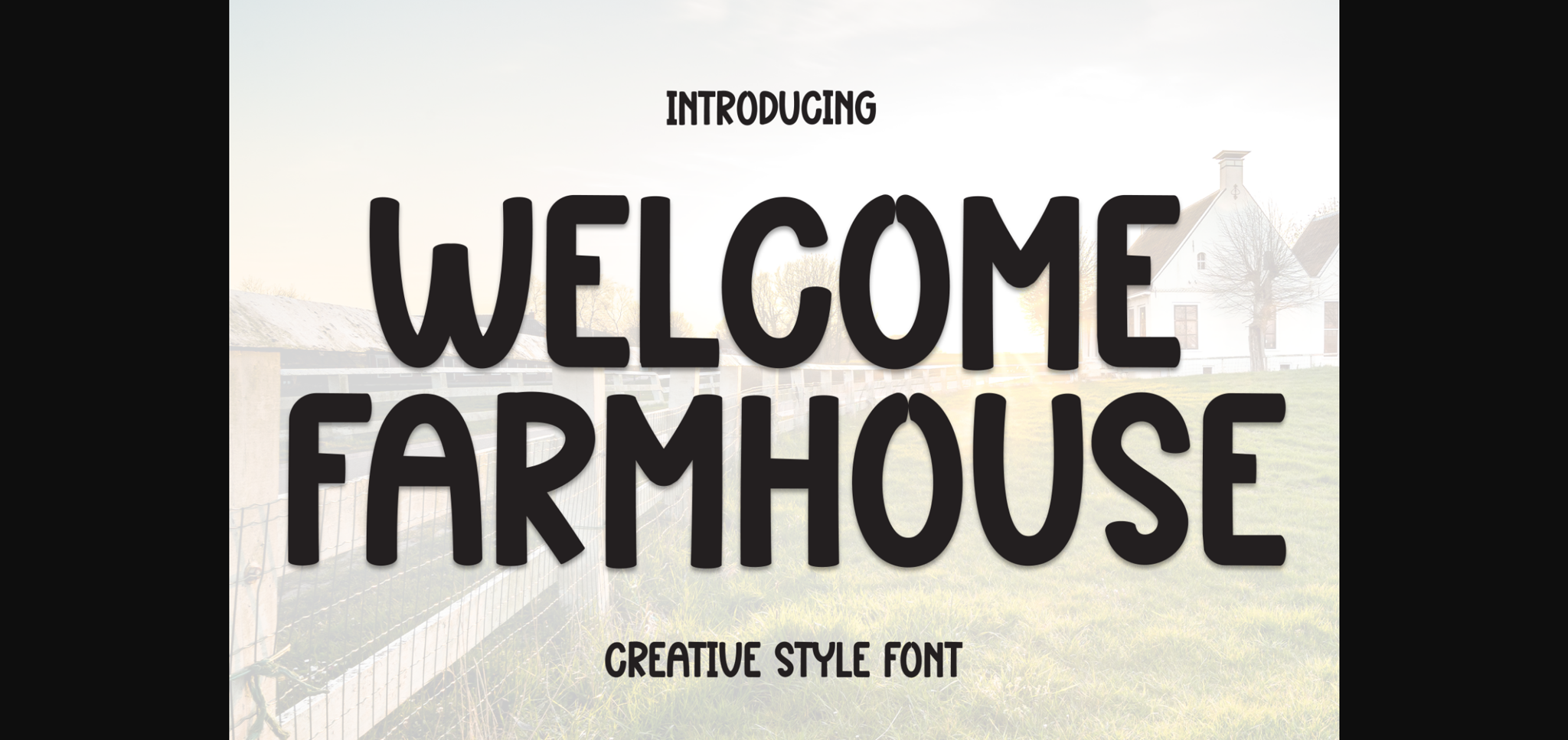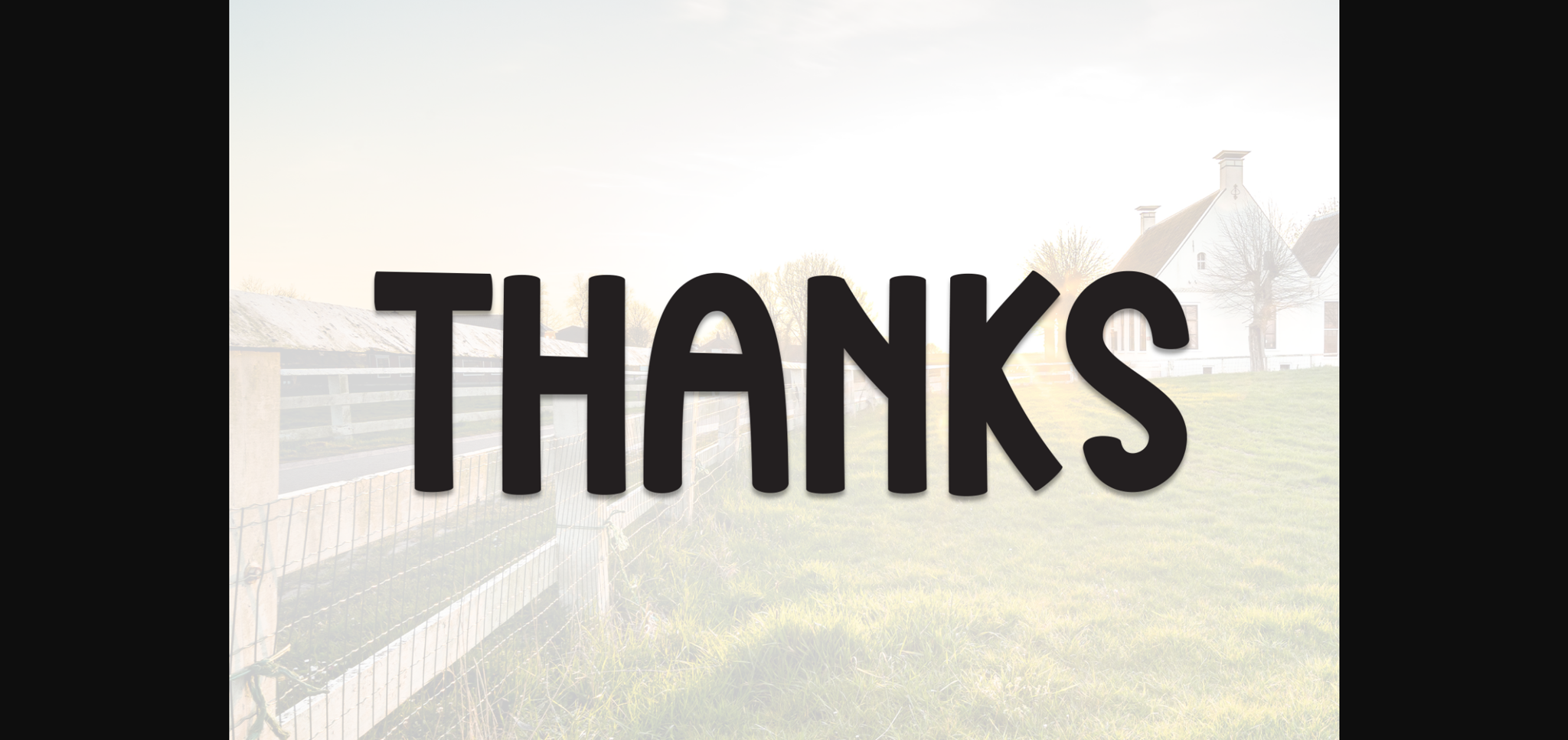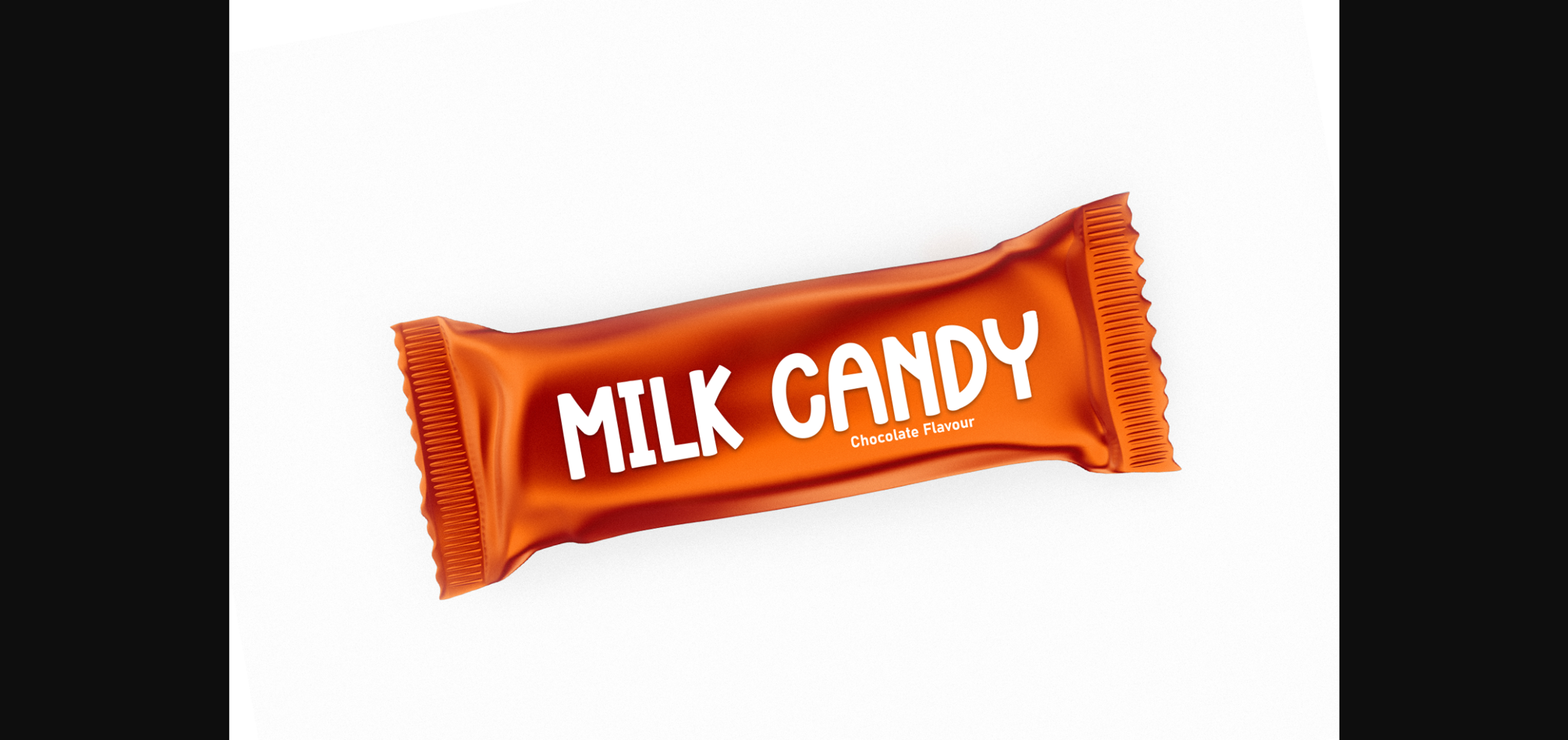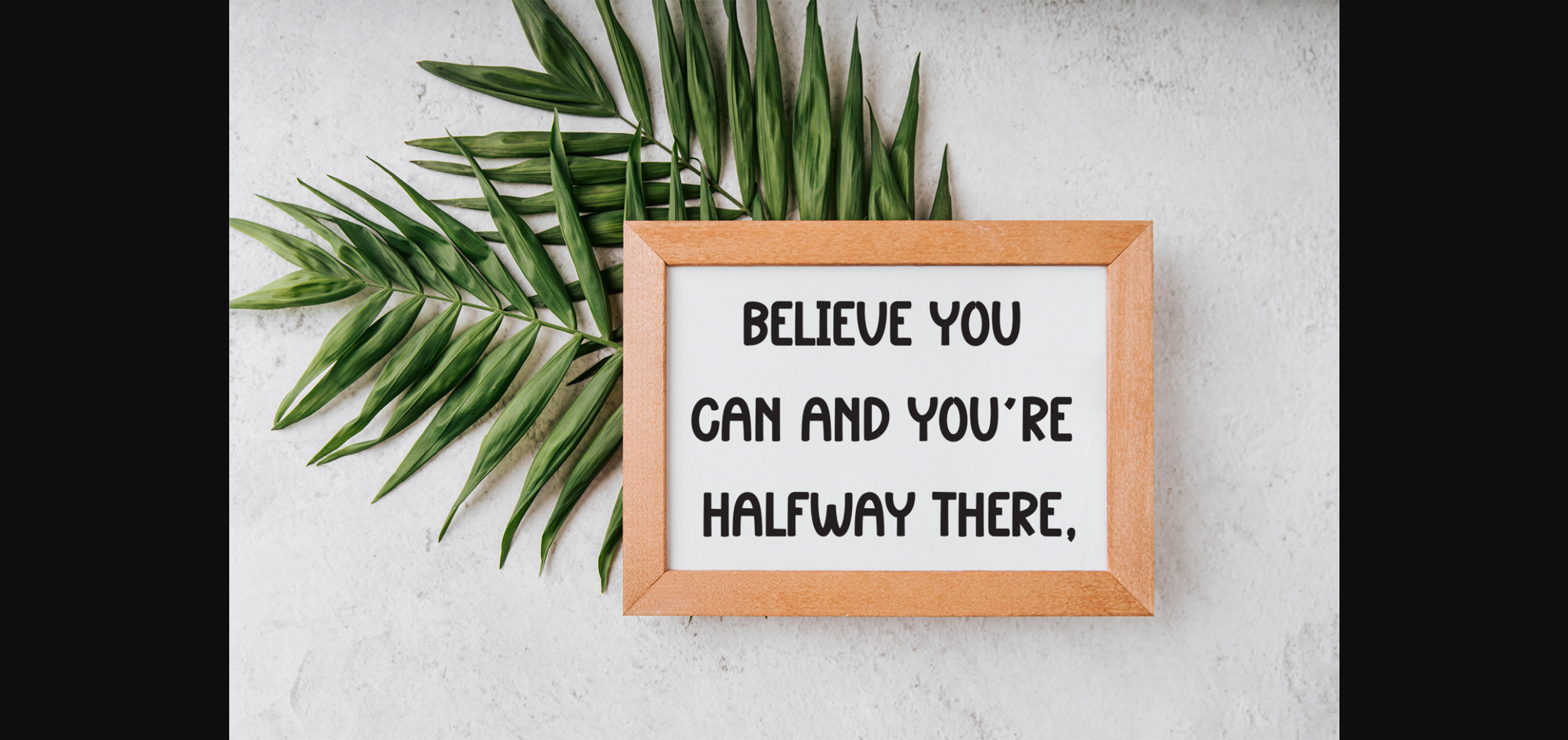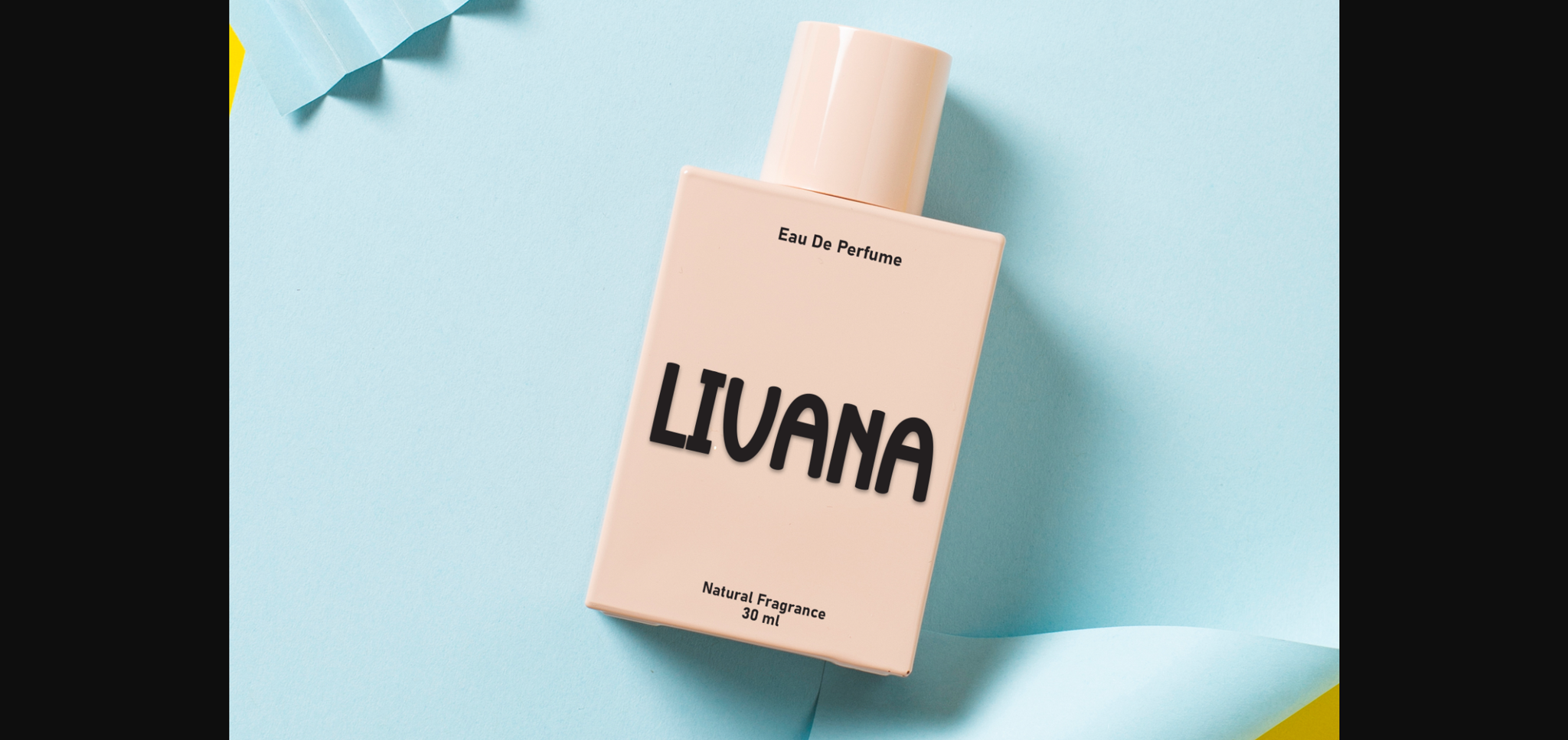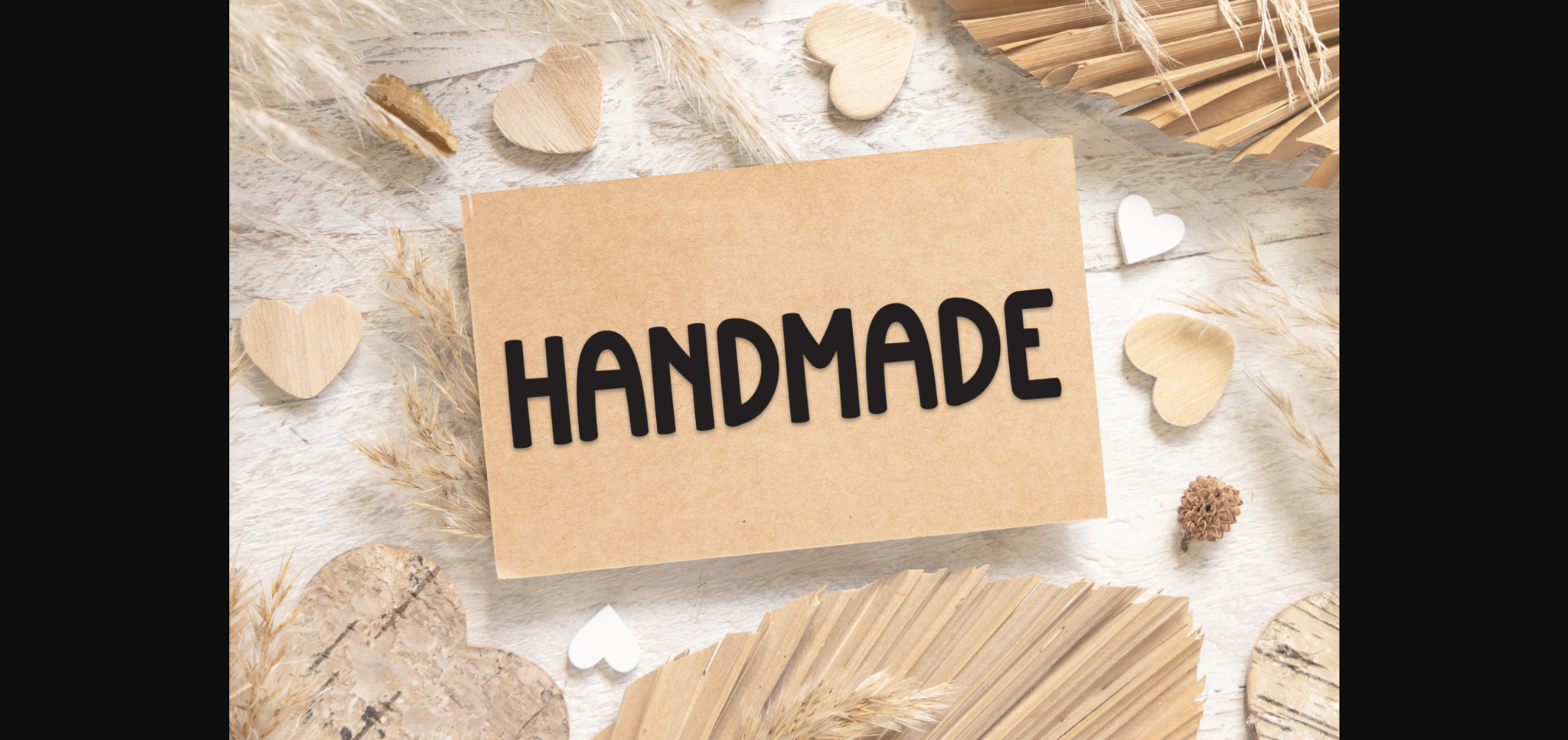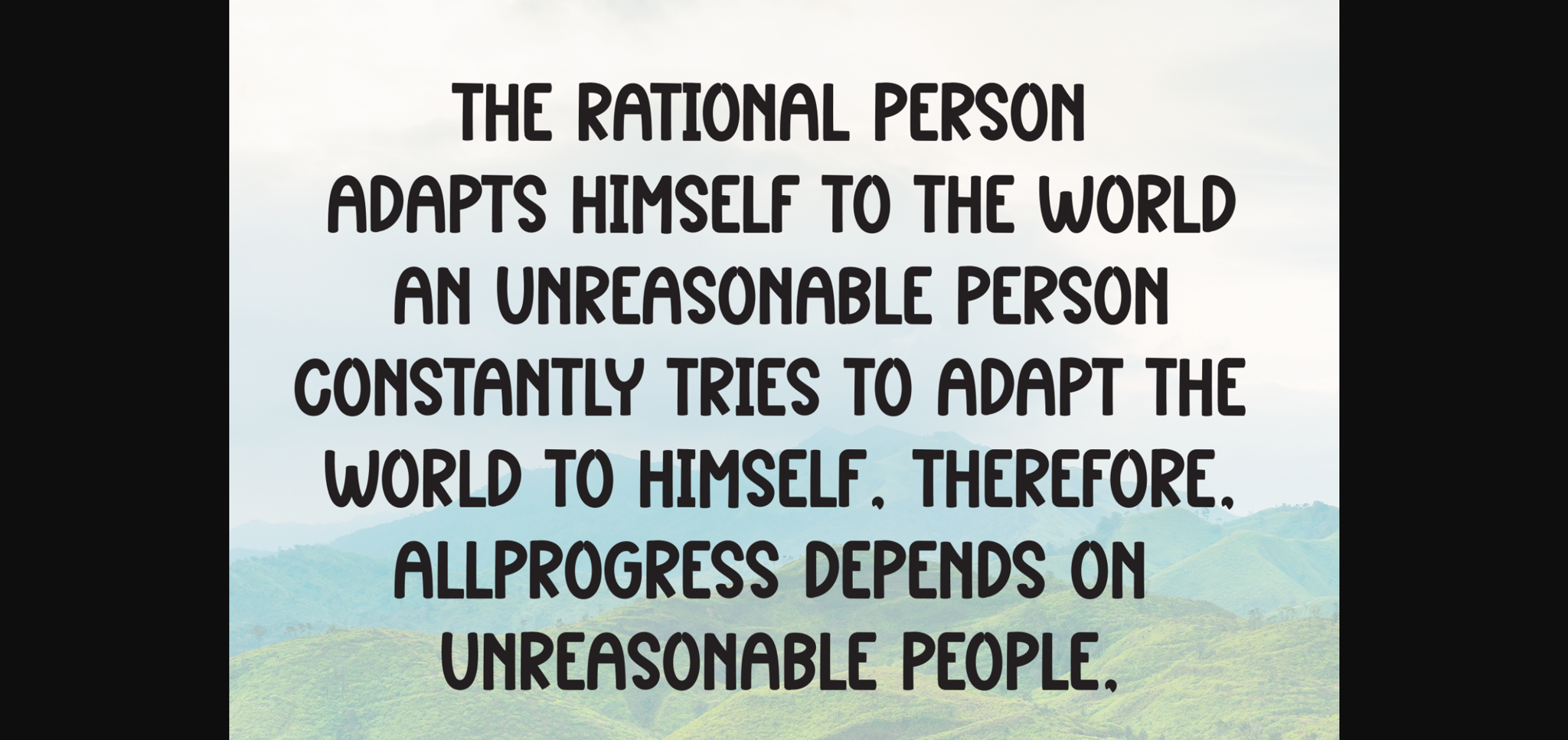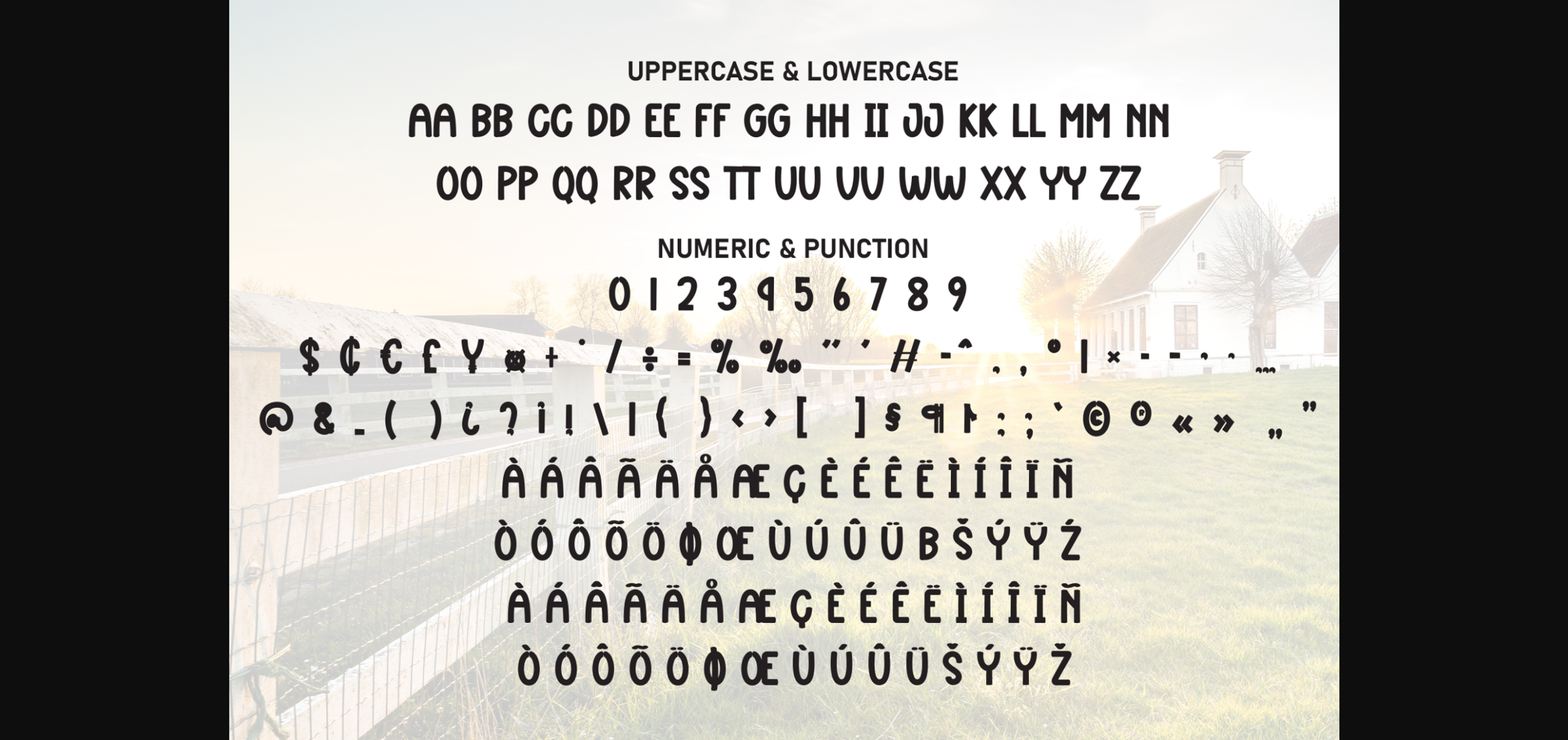
About Welcome Farmhouse Font
Welcome Farmhouse is a neat and casual sans-serif font that combines simplicity with a touch of warmth. With clean lines and balanced proportions, it exudes a friendly and approachable vibe. Perfect for various design projects, Welcome Farmhouse brings a modern and versatile style to your typography repertoire.